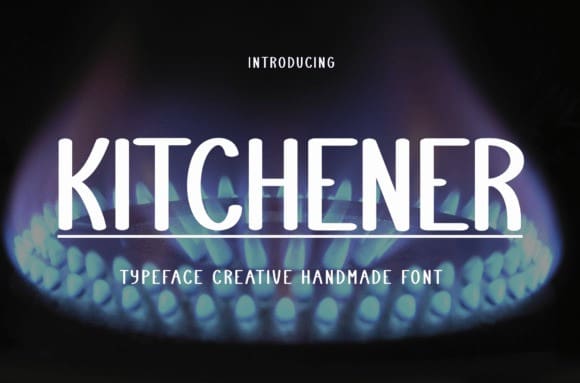
Kitchener Playful Font
Kitchener Playful Font, is a sweet and friendly handwritten font. Fresh and neat, this font is ideal for writing wedding invitations, cards, or any other design that might need a fun touch!